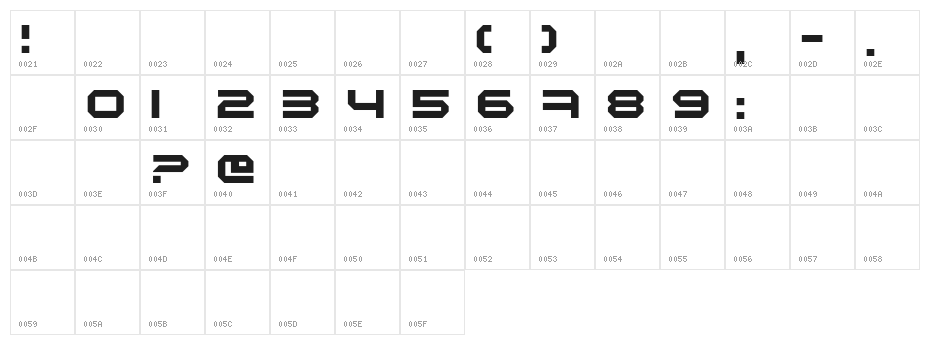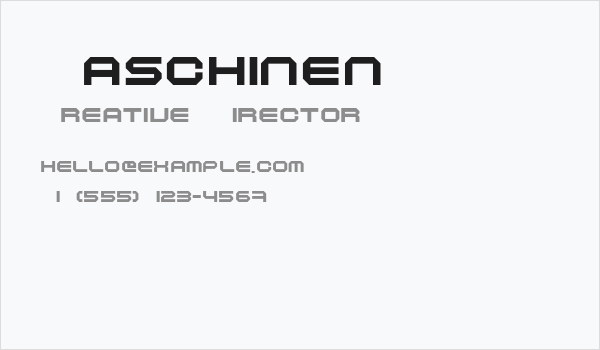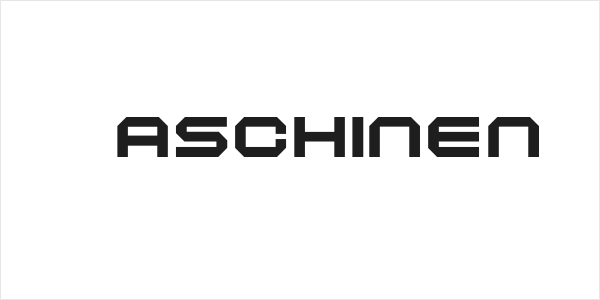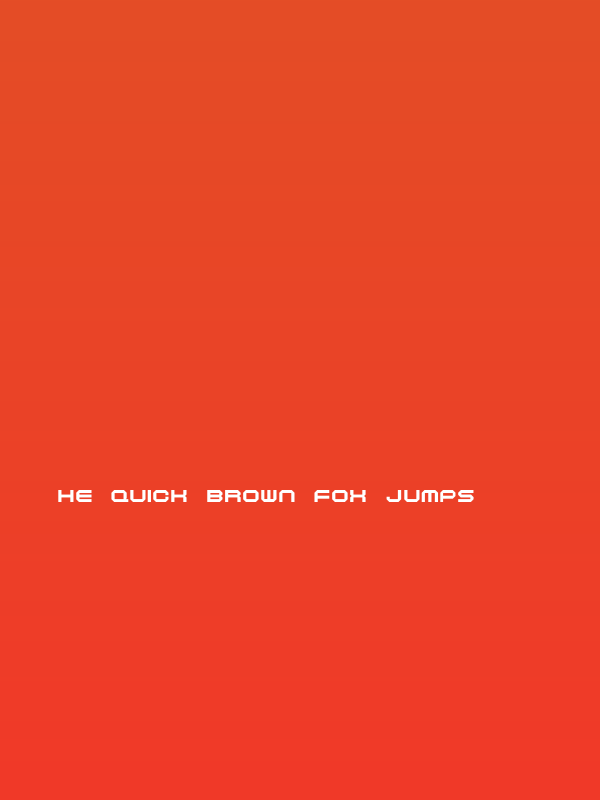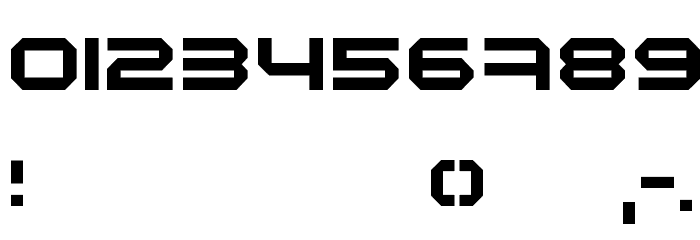
Maschinen Font
Maschinen Description
This font features a bold, geometric design with a distinctly industrial and futuristic aesthetic. The characters are constructed with sharp angles and straight lines, giving them a mechanical appearance. The uniformity and precision in the letterforms suggest a sense of strength and modernity. The uppercase and lowercase letters maintain a consistent style, while the numerals and special characters complement the overall design. This font is highly legible and makes a strong visual impact, ideal for projects that require a bold statement.
| Overall Style | Futuristic, Industrial |
| Proposed Projects | Ideal for technology branding, sci-fi themed projects, video game titles, and industrial design applications. |